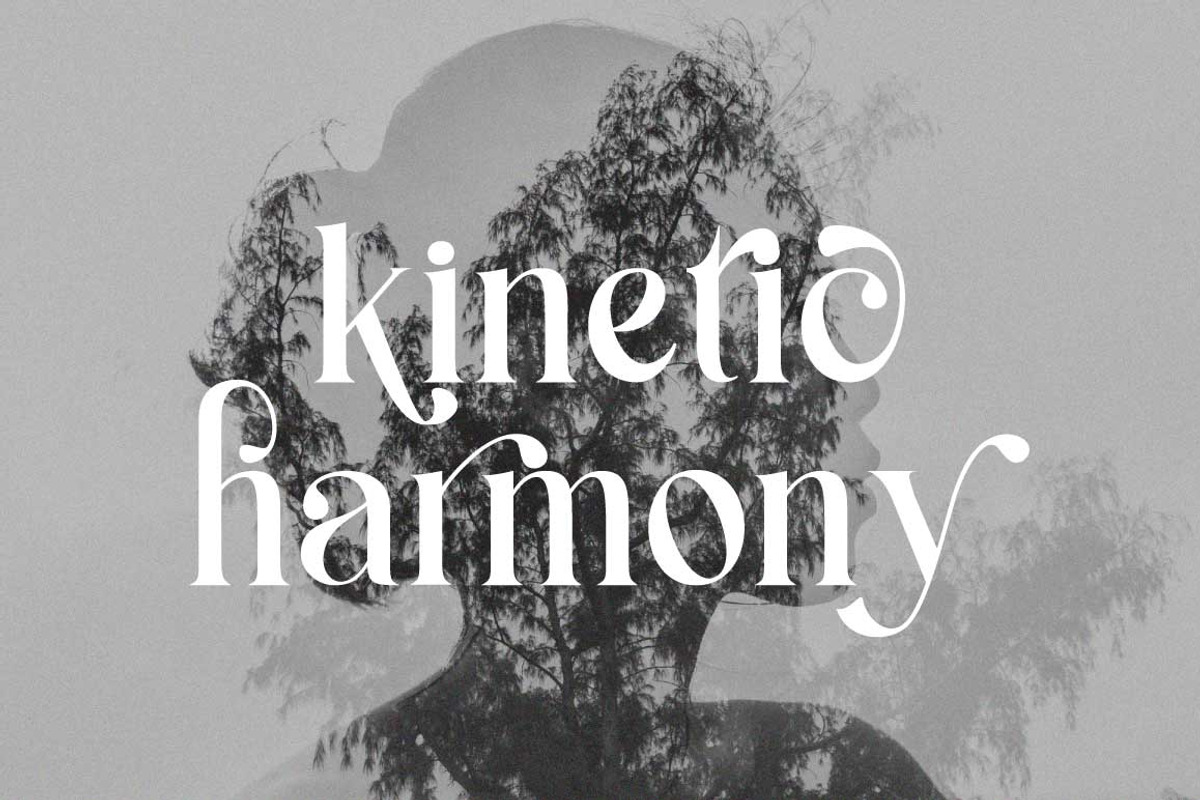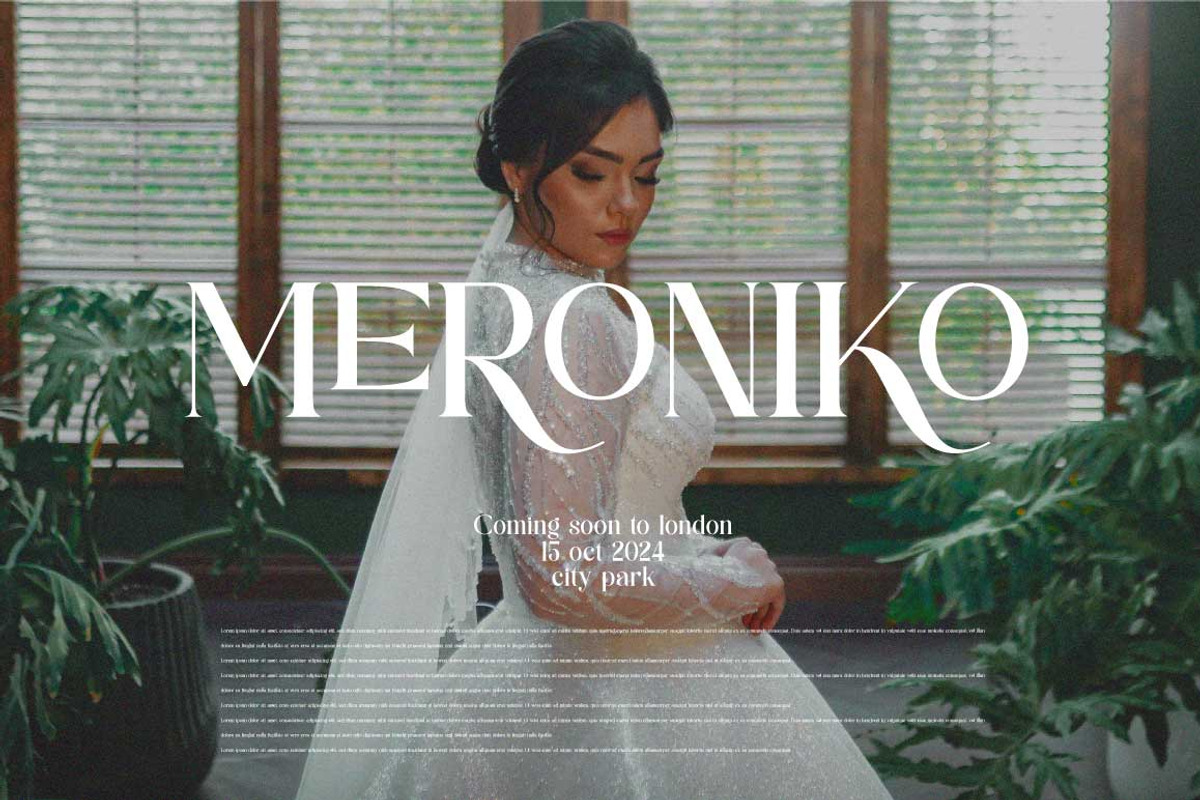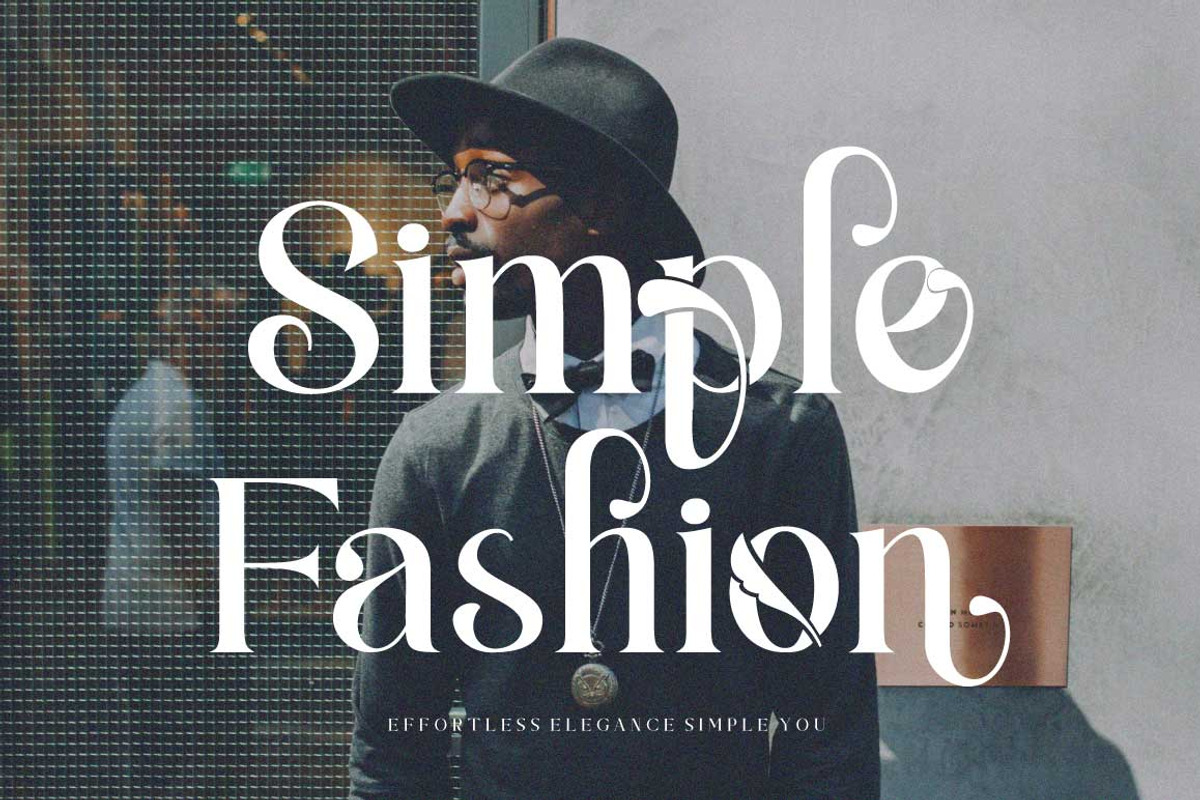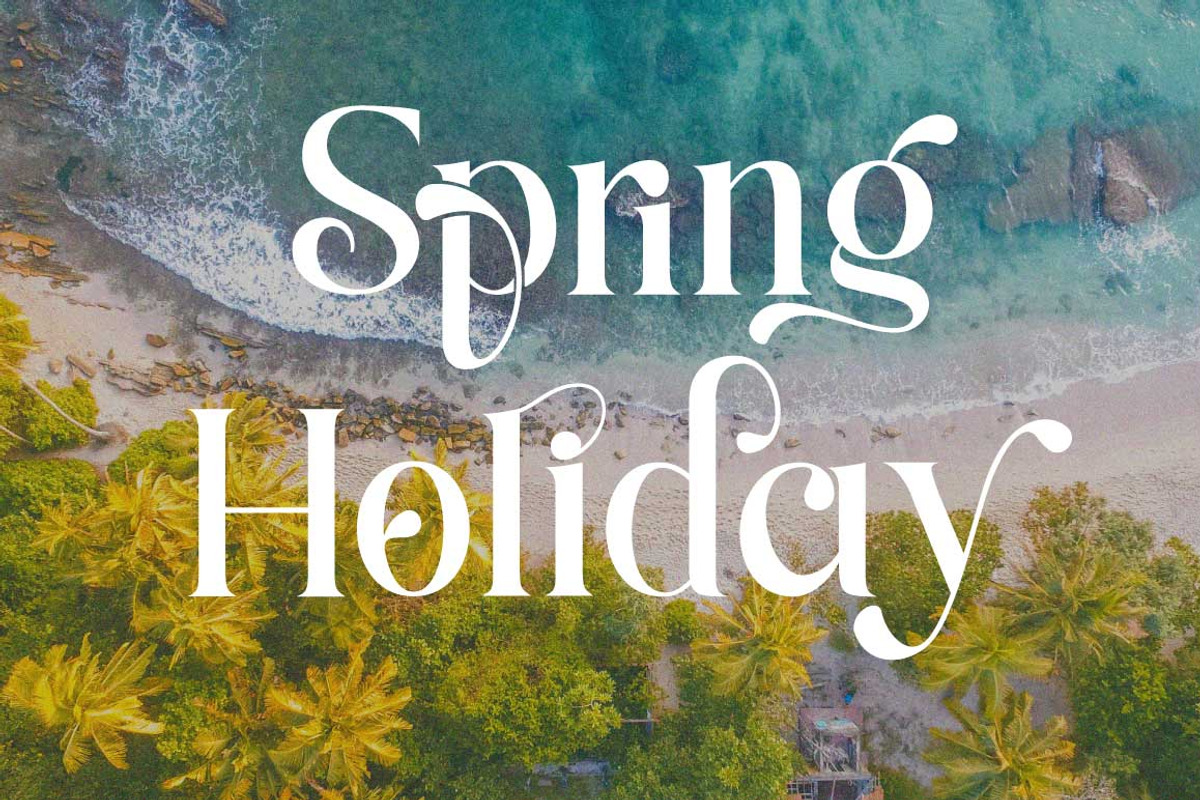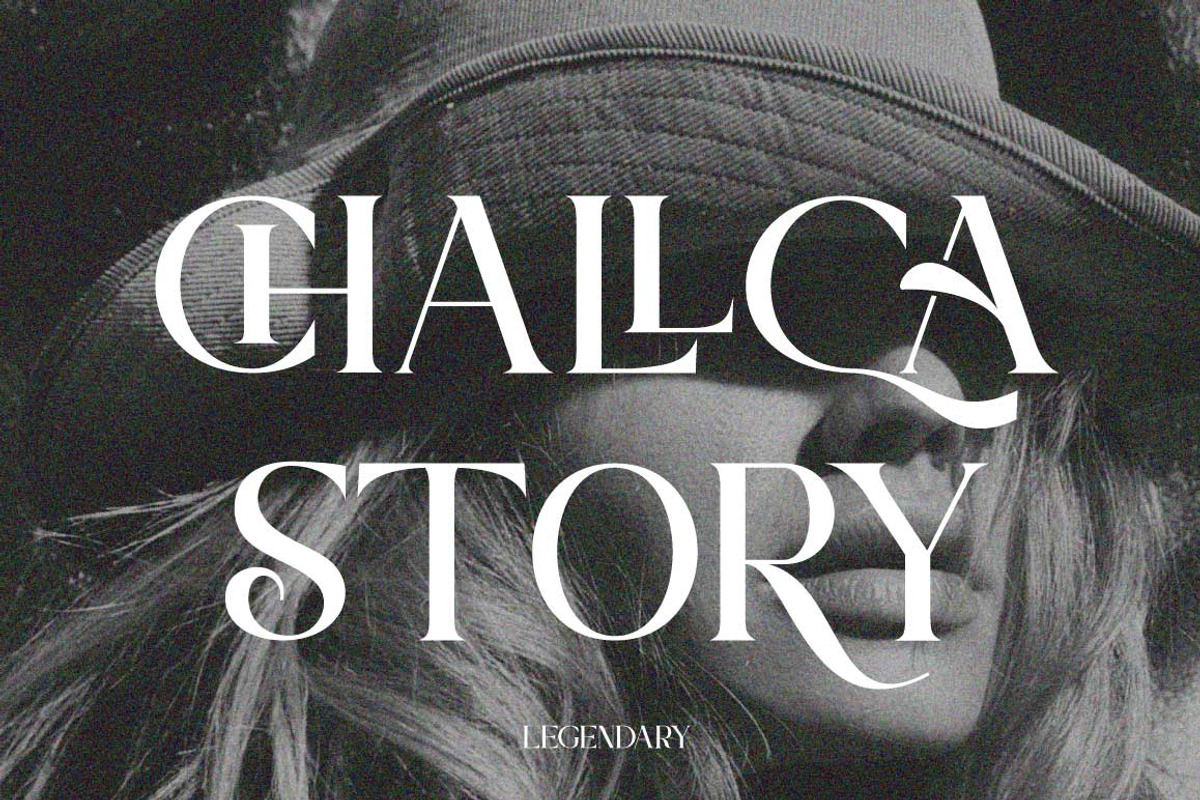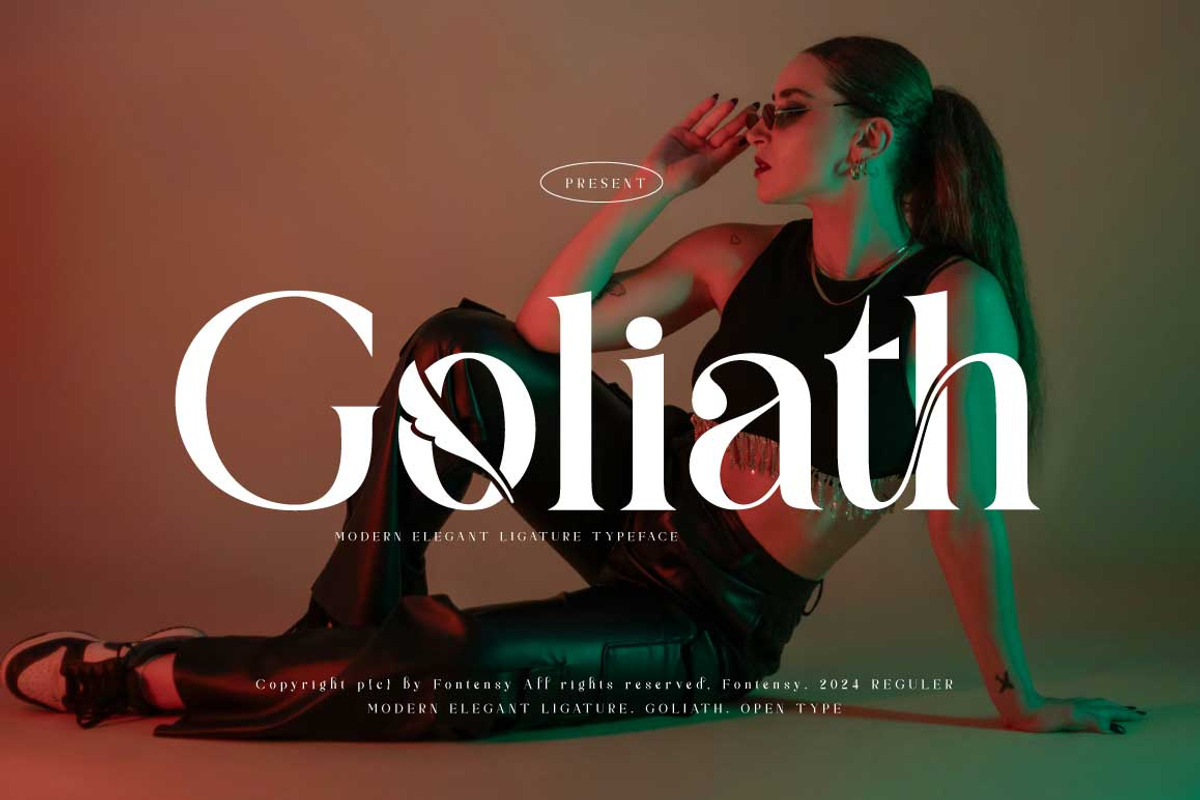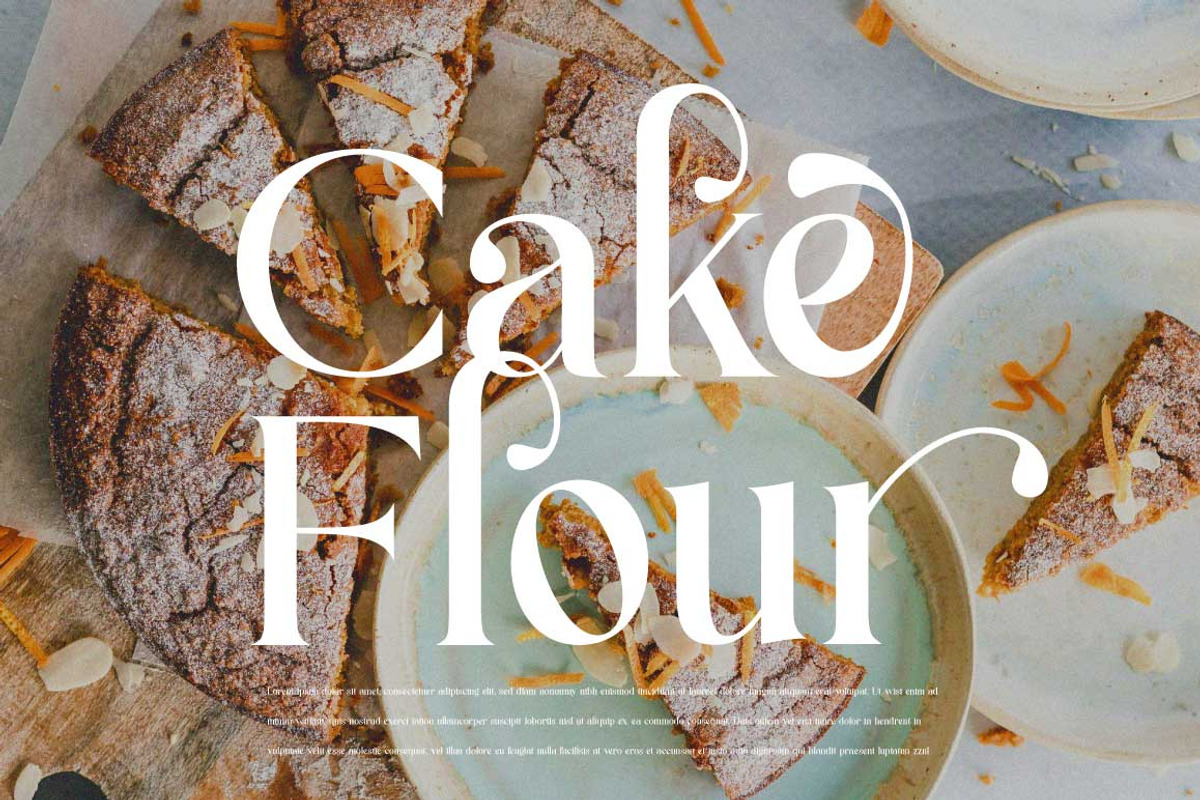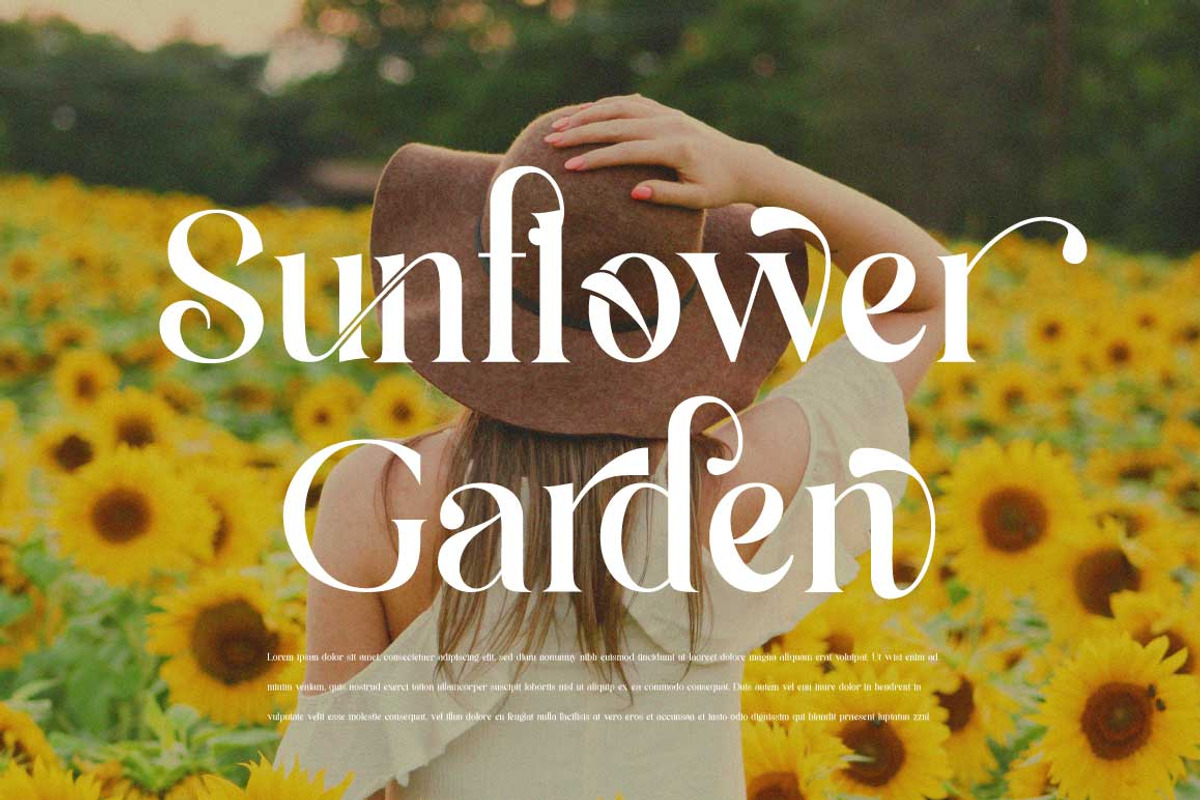
Goliath Typeface
I'm present to you, new retro serif called Goliath!
Goliath is a stylish font that is both retro and bold font. It's thick curves give a 70s groovy vibe with the serifs bringing it slightly back to traditional Goliath fits perfectly into those nostalgic moodboards and vintage logos. It come with a unique lower and uppercase plus numbers, punctuation & multilingual letters.
Why Goliath Typeface is worth a look
Goliath Typeface by Cut Story fits naturally into Branding, posters, packaging, typography.